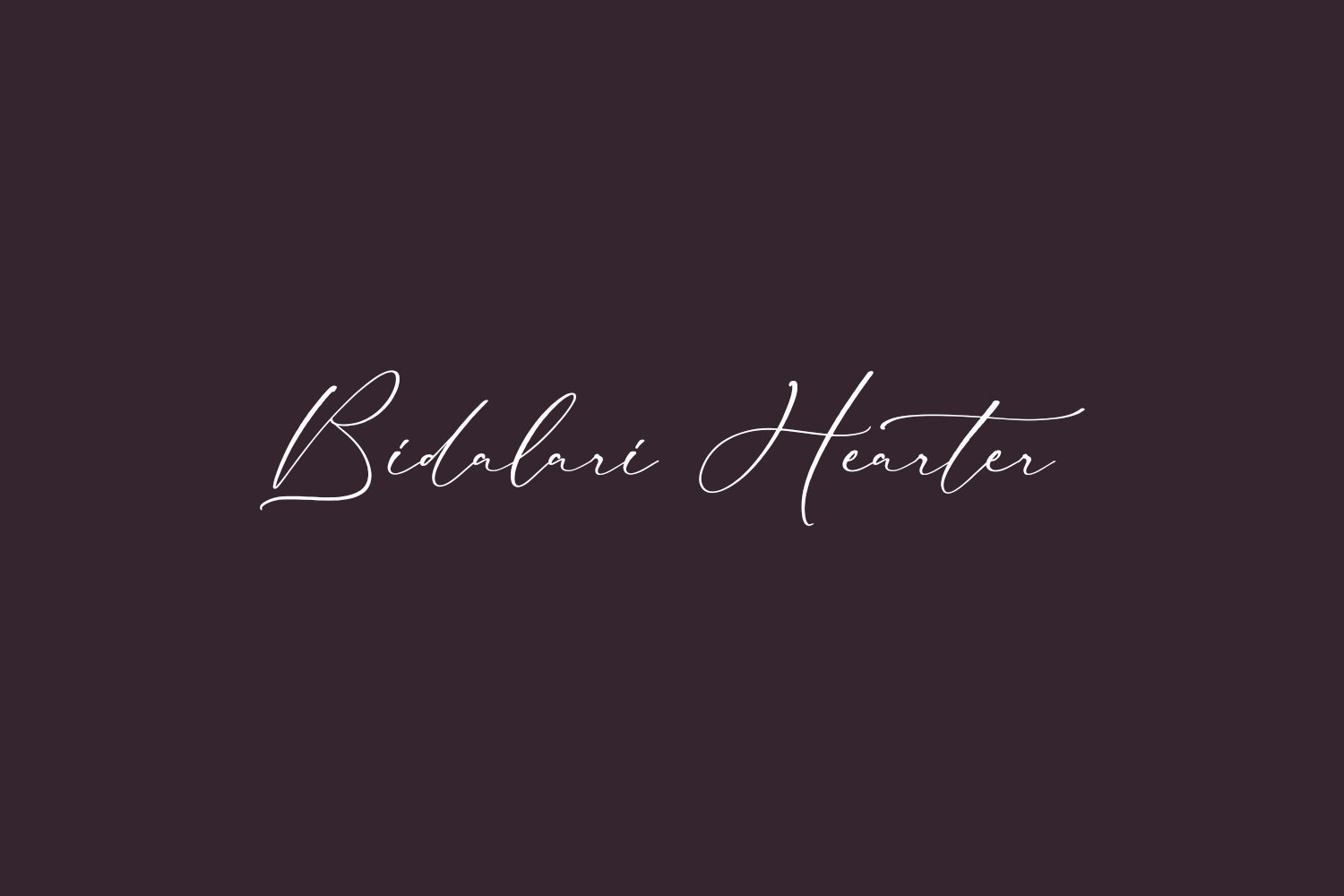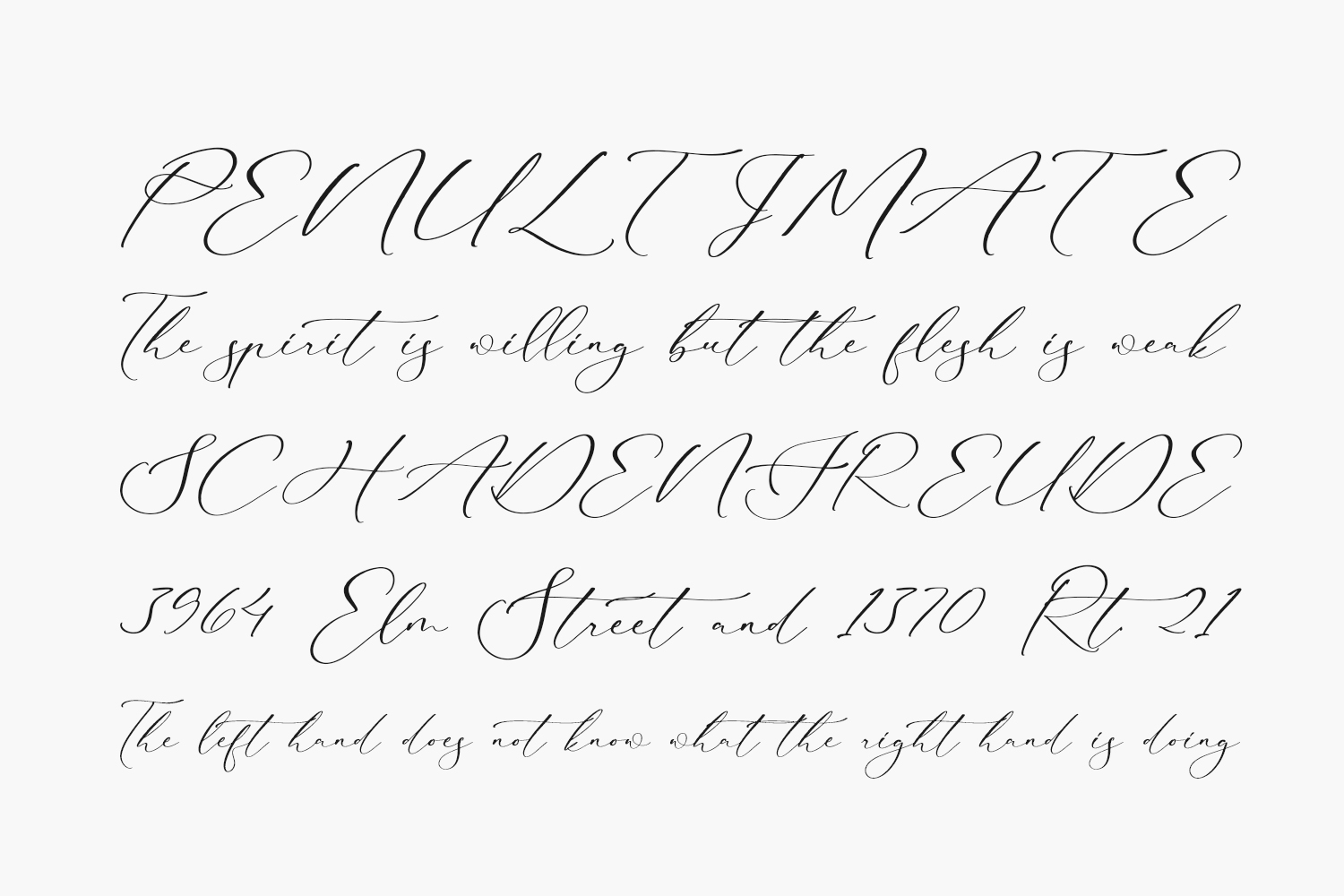
Bidalari Hearter – Free Elegant Signature Script Font
Why Choose Bidalari Hearter?
- Signature Script Aesthetic: Smooth, connected cursive mimics elegant handwriting.
- Advanced OpenType Features: Includes alternates and ligatures for natural letter flow.
Where to Use Bidalari Hearter?
- Wedding Invitations & Stationery: Adds personal, romantic flair to event design.
- Luxury Branding & Logos: Elegant signature-style wordmarks for high-end brands.
- Quotes & Social Graphics: Expressive overlays for Instagram, Pinterest, and more.
- Editorial & Book Covers: Sophisticated titles with handwritten nuance.
- Monograms & Photo Watermarks: Perfect for personal branding in photography and crafts.
Design Tips with Bidalari Hearter
- Glyphs: Uppercase/lowercase A–Z, numerals, punctuation, stylistic alternates & ligatures (PUA‑encoded).
- Language Support: Basic Latin plus accents (English, Italian, Cebuano, Dutch, Swedish, etc.)